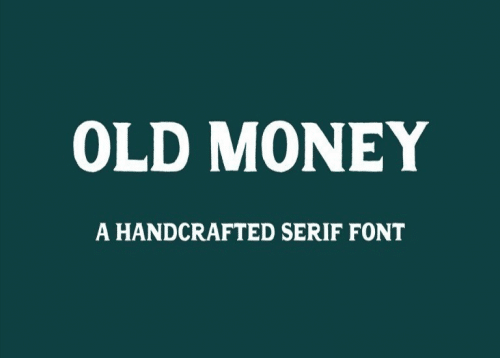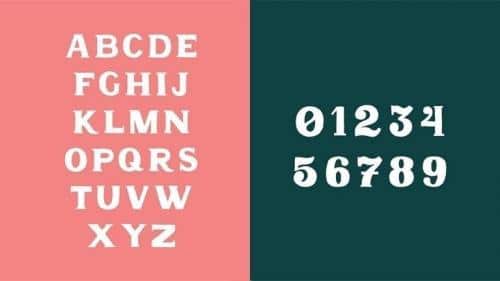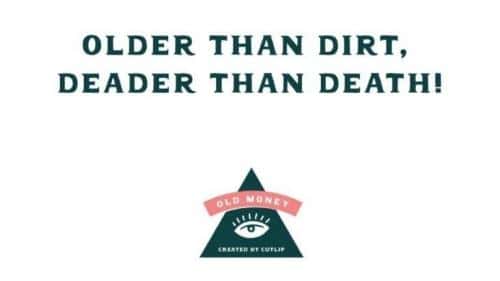
Old Money Display Font is a display serif typeface a long time in the making. A nod to the past and a celebration of the bold. Inspired by retro motorcycle posters, signs, and photos of the past, while harnessing and inspiring the boldness that comes with facing the roads ahead.
- Designer: Charlie Robinson